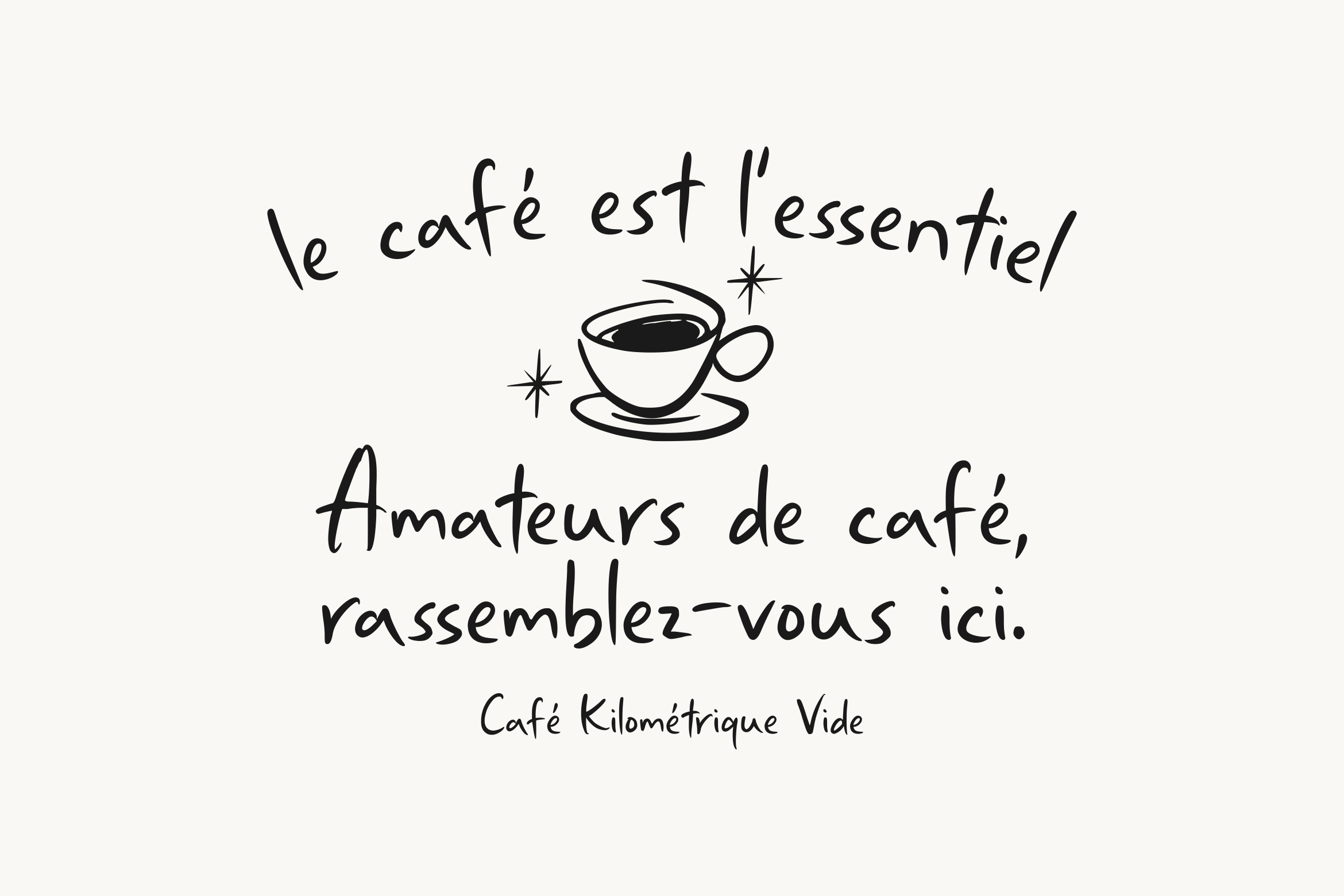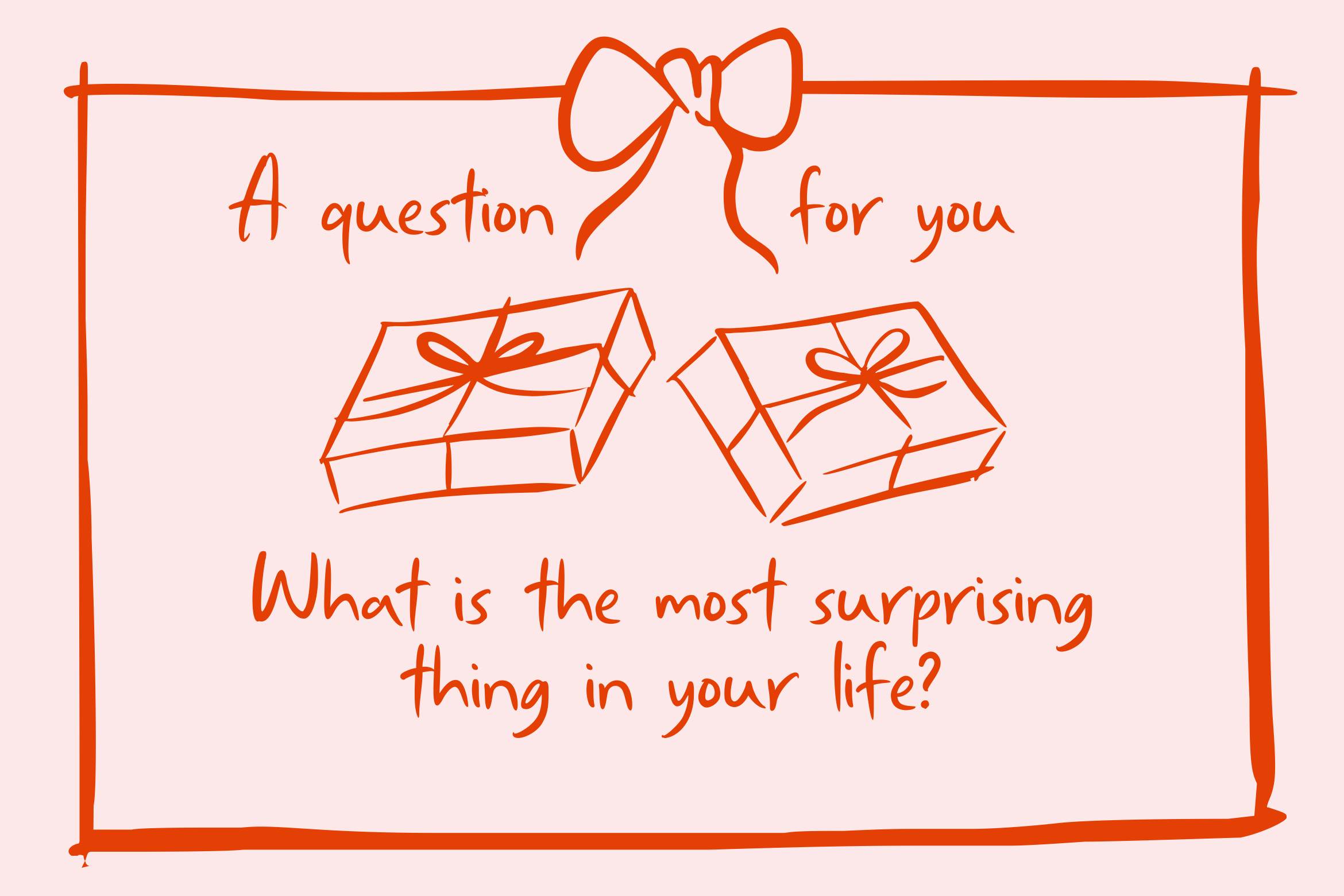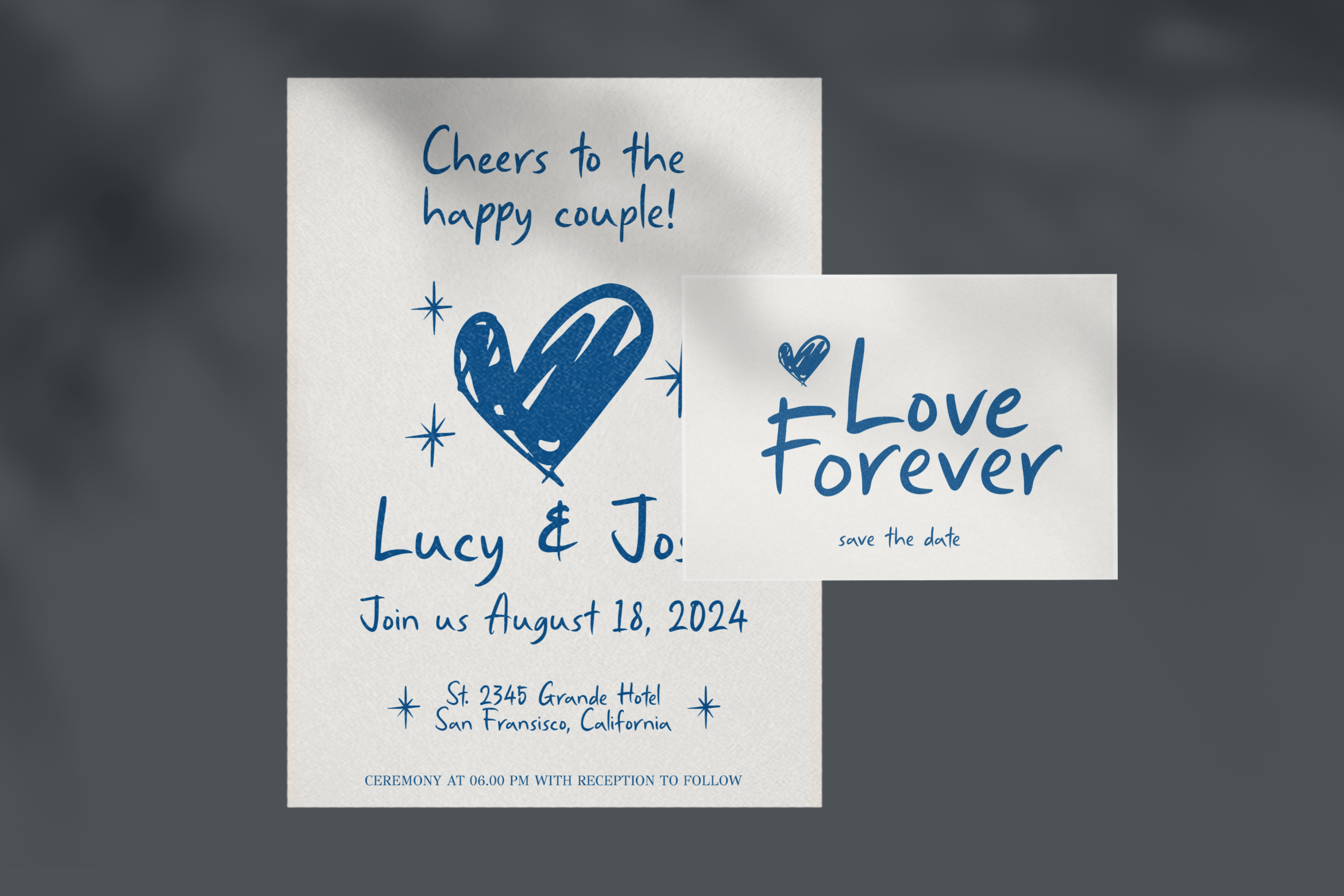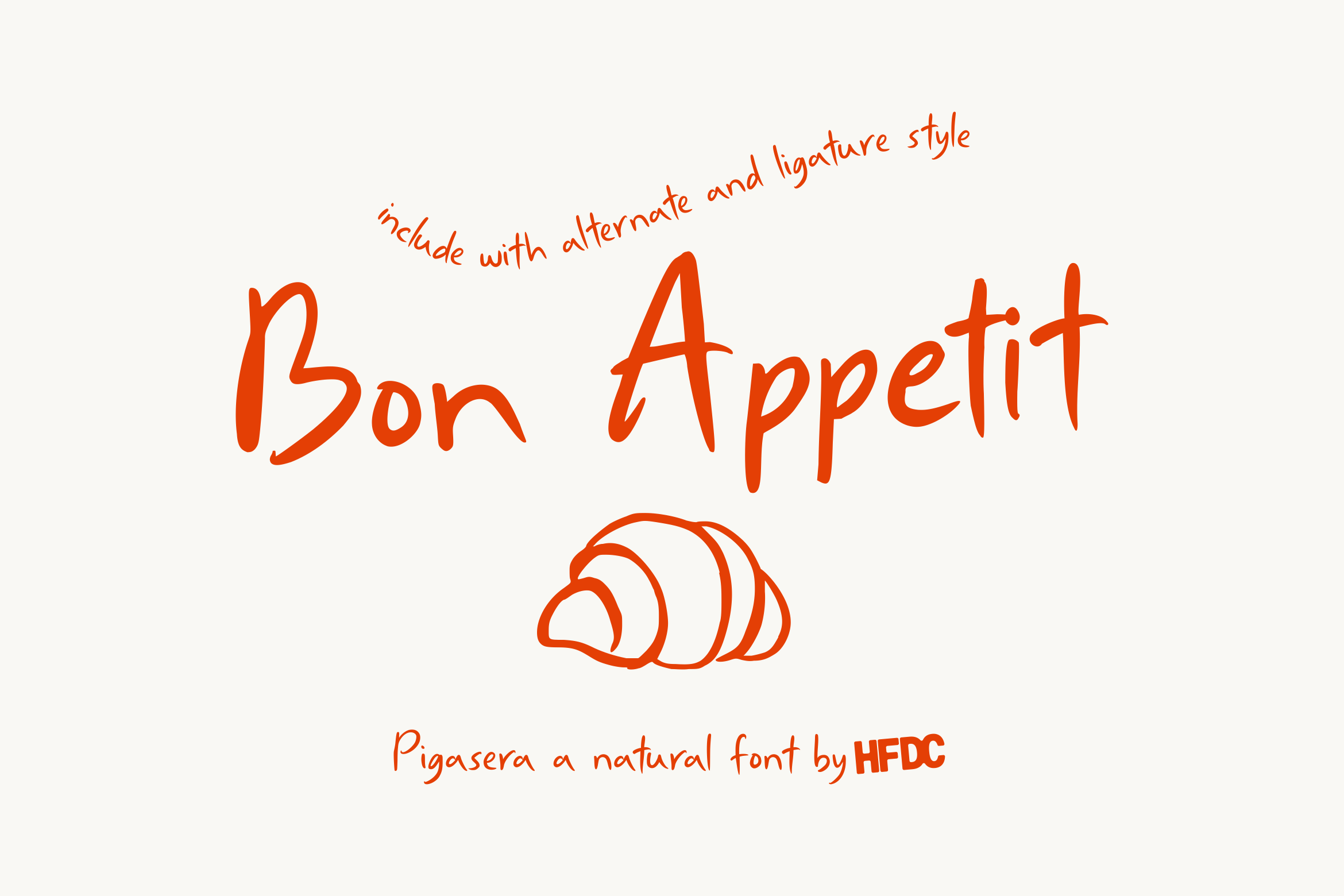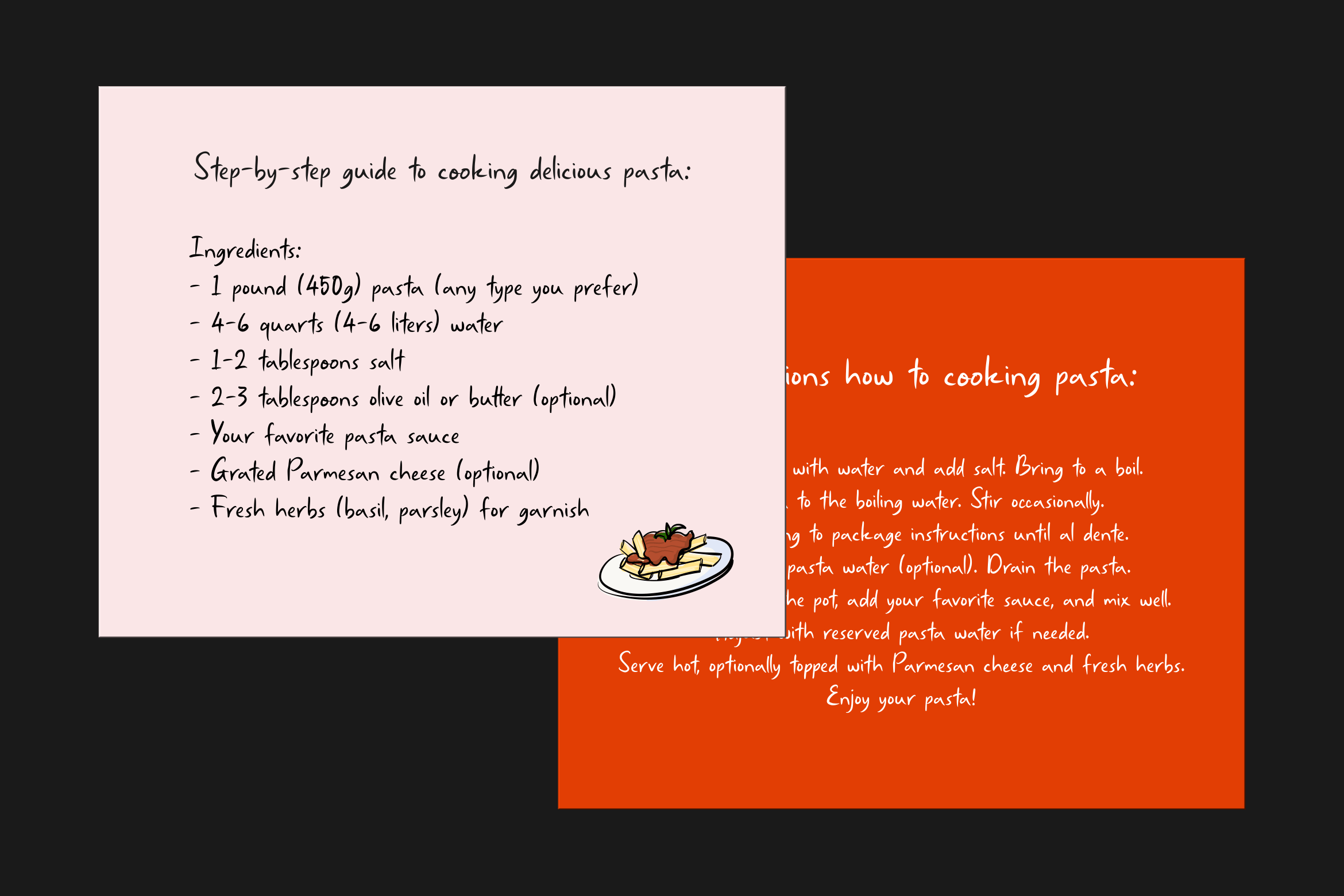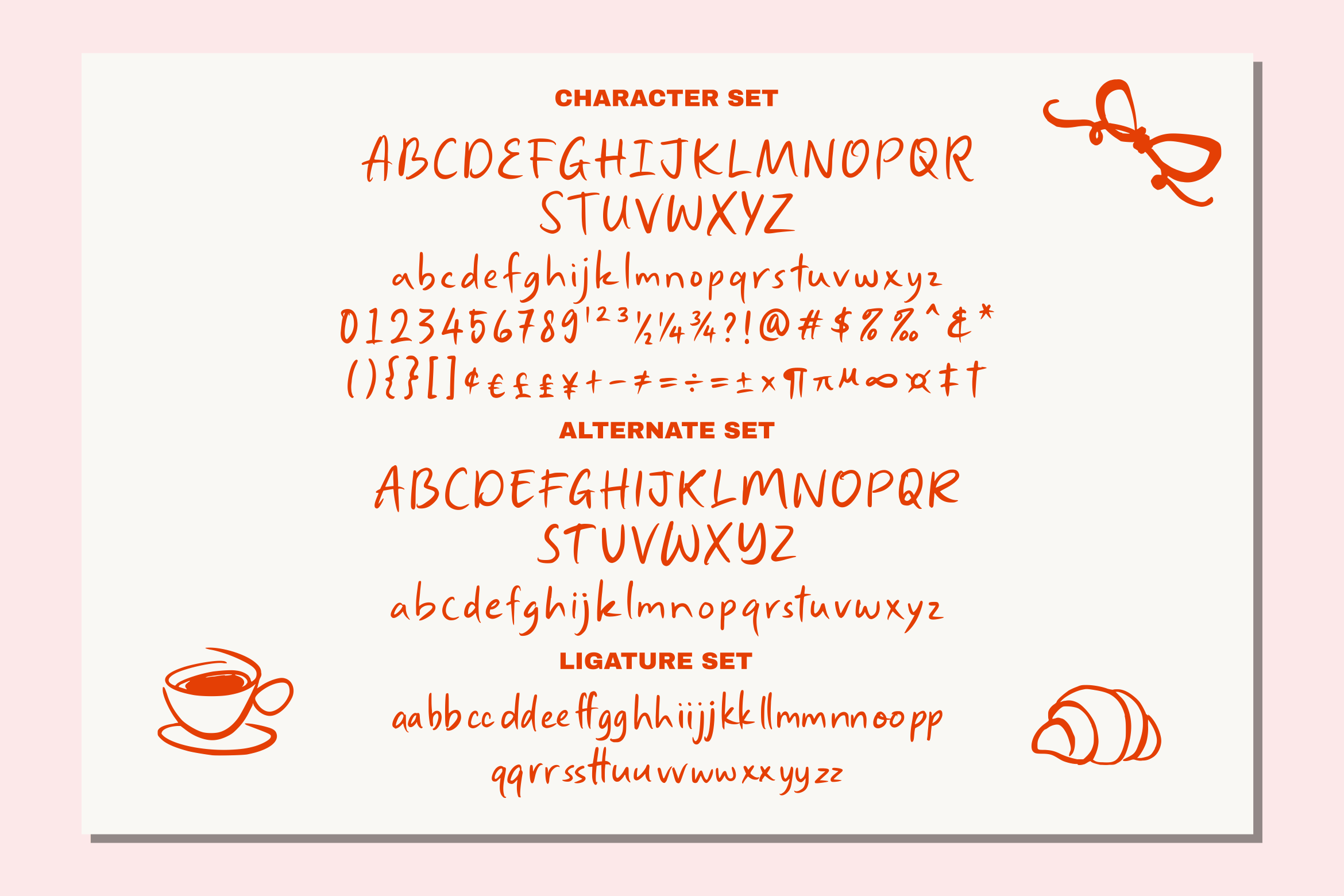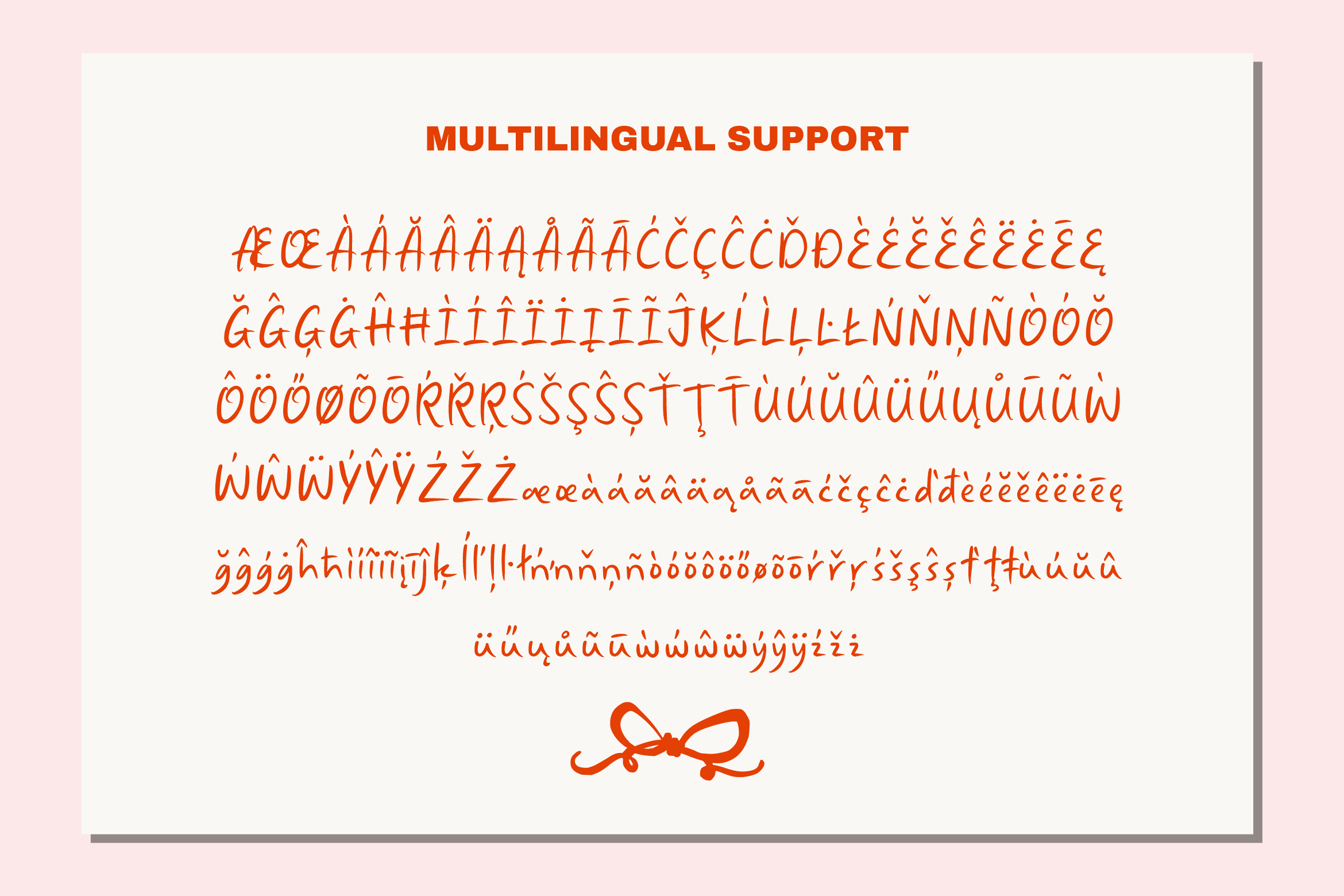
- Piegasera Hand Script Font
Piegasera hand script font is realistic and natural handwriting is created out of the desire to create something that feels romantic, happy, funny and enjoyable in graphic designs and printed designs such as posters, food menus, wedding invitations and more desain.
Available with an opentype feature which will add to the naturalness of this font which you can easily mix and match.
- Uppercase and lowercase
- Alternates opentype feature
- Numeral and punctution
- Multilingual support